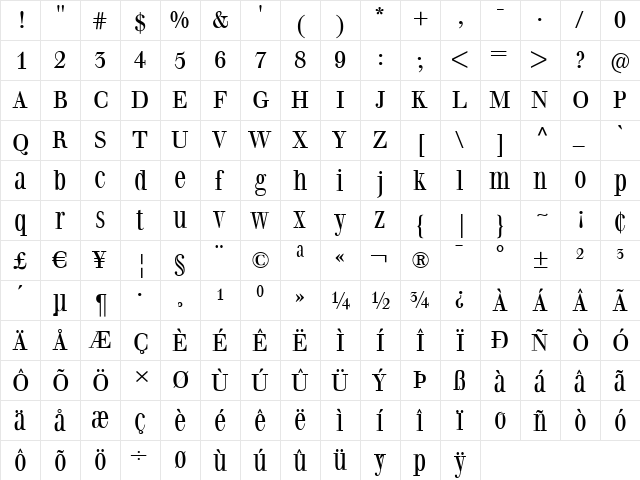
ClassizismAntiqua Regular Font Preview
ClassizismAntiqua Regular
ClassizismAntiqua Regular Font Details
Design Context for ClassizismAntiqua Typeface
ClassizismAntiqua offers clean, dependable letterforms without strong stylistic allegiance, making it a practical choice for designers who need flexibility.